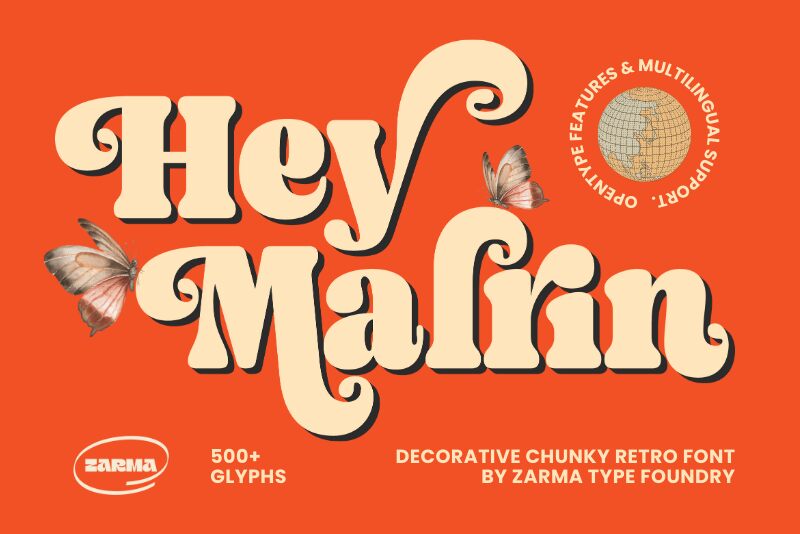
Malrin, crafted by Zarma Type Foundry, evokes a vibrant nostalgia with its bold, retro flair. This display typeface captivates with its playful curves and confident lines, making a statement that is both eye-catching and memorable. The design's striking weight exudes authority while maintaining an approachable charm.
Visually compelling and imbued with character, Malrin effortlessly transitions from eye-catching headlines to dynamic brand identities. Its unique style makes it an ideal choice for retro-themed projects, playful advertisements, or any design seeking to convey a sense of fun and whimsy. Whether gracing posters or digital content, Malrin stands ready to elevate creative endeavors with its distinctive presence.